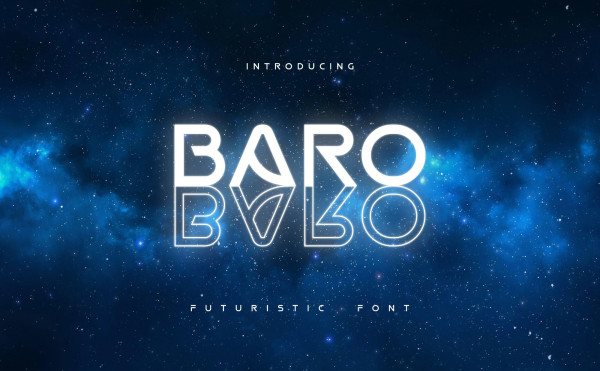
Baro Futuristic Font
Baro Futuristic Font is a cutting-edge and futuristic font that embodies sleek, minimalist design principles. Its distinctive, clean lines and sharp angles evoke a sense of innovation and modernity.